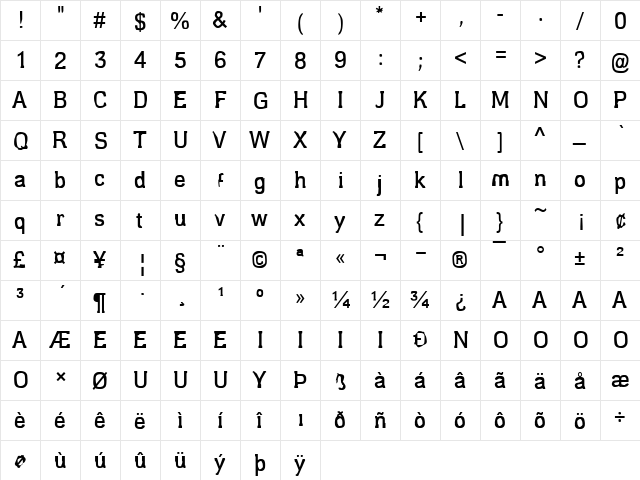
Estragou de novo!!! Regular
Design Context for Estragou de novo!!! Typeface
Estragou de novo!!! takes a measured approach to typography — its balanced proportions and neutral character make it a reliable workhorse for both digital and print work.